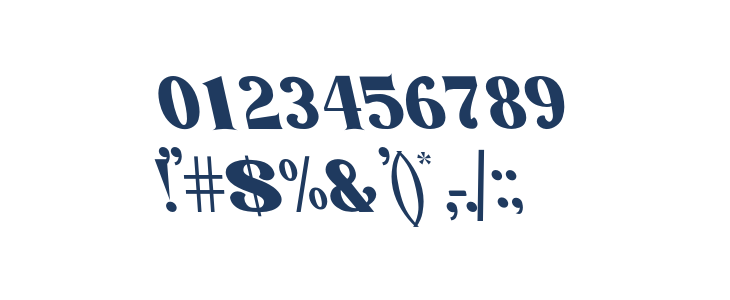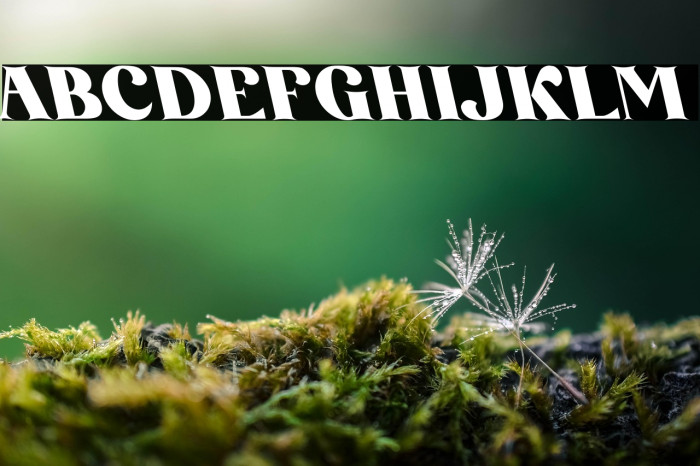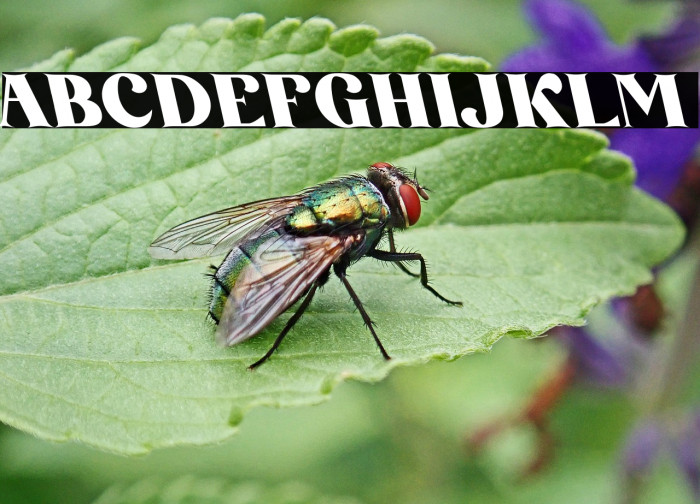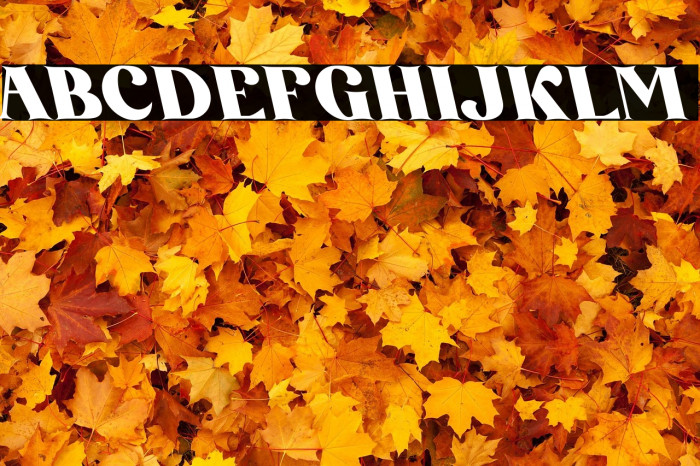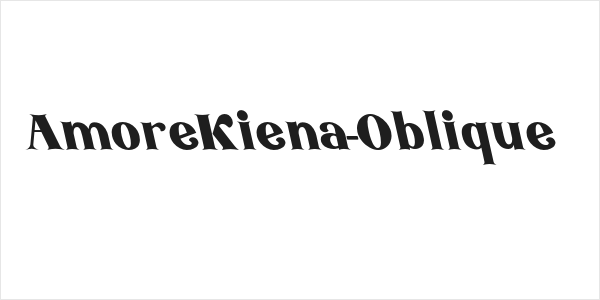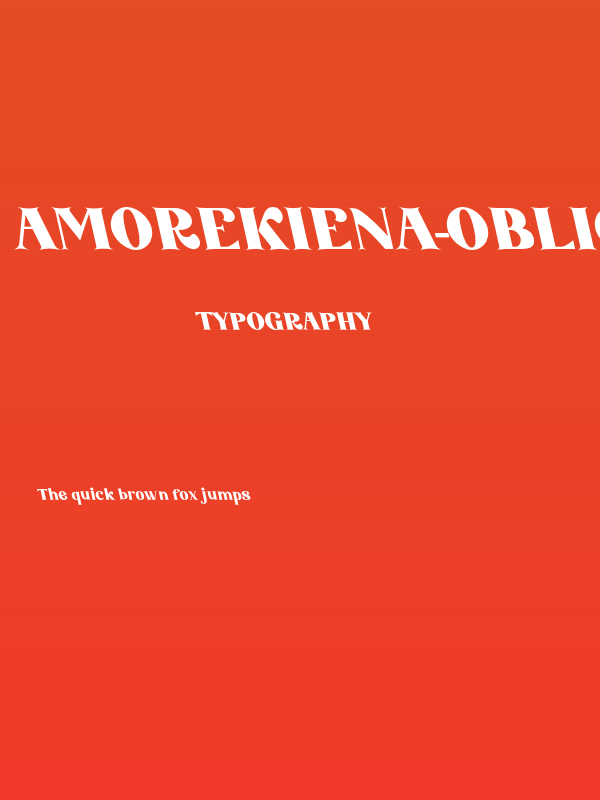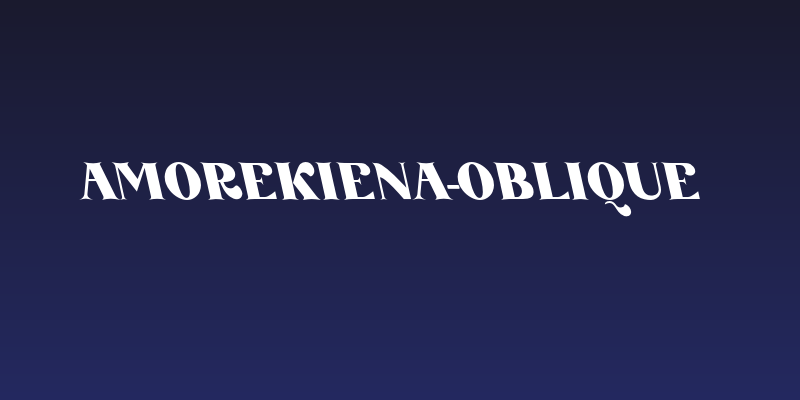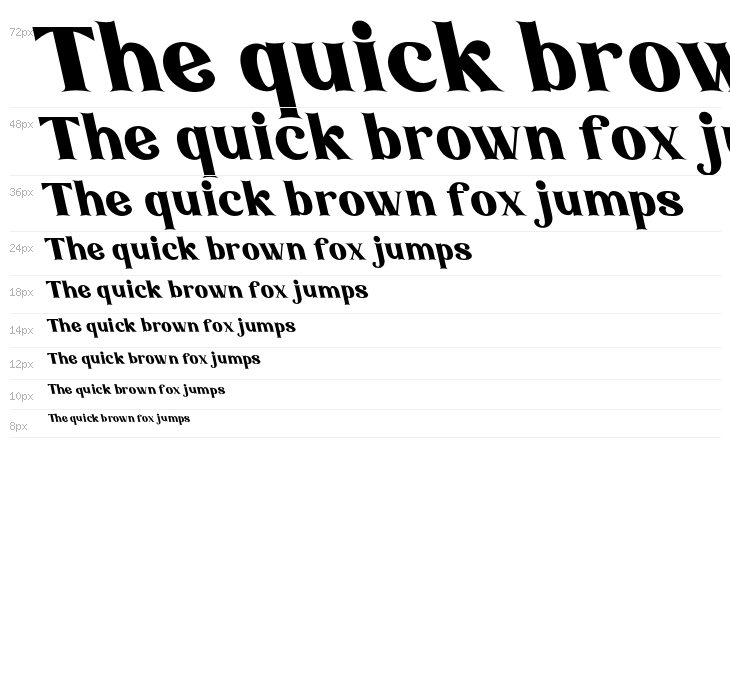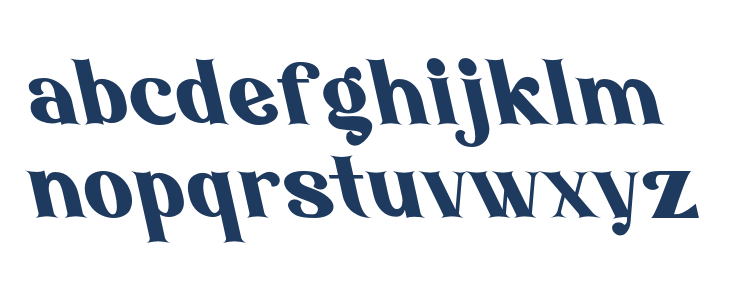
AmoreKiena-Oblique Font
AmoreKiena-Oblique Description
This font features a bold and dynamic style with a distinct oblique slant, giving it a sense of movement and energy. The characters are robust with thick strokes, creating a strong visual impact. The serifs are pronounced, adding a touch of elegance and classic appeal. The uppercase letters are particularly striking, with a slight curvature that enhances their boldness. The lowercase letters maintain a consistent style, complementing the uppercase with their rounded forms. The numerals are equally bold, ensuring readability and consistency across different uses. Special characters are well-integrated, maintaining the overall aesthetic of the font.
| Proposed Projects | Ideal for branding, headlines, posters, and any project requiring a strong, elegant typeface. |